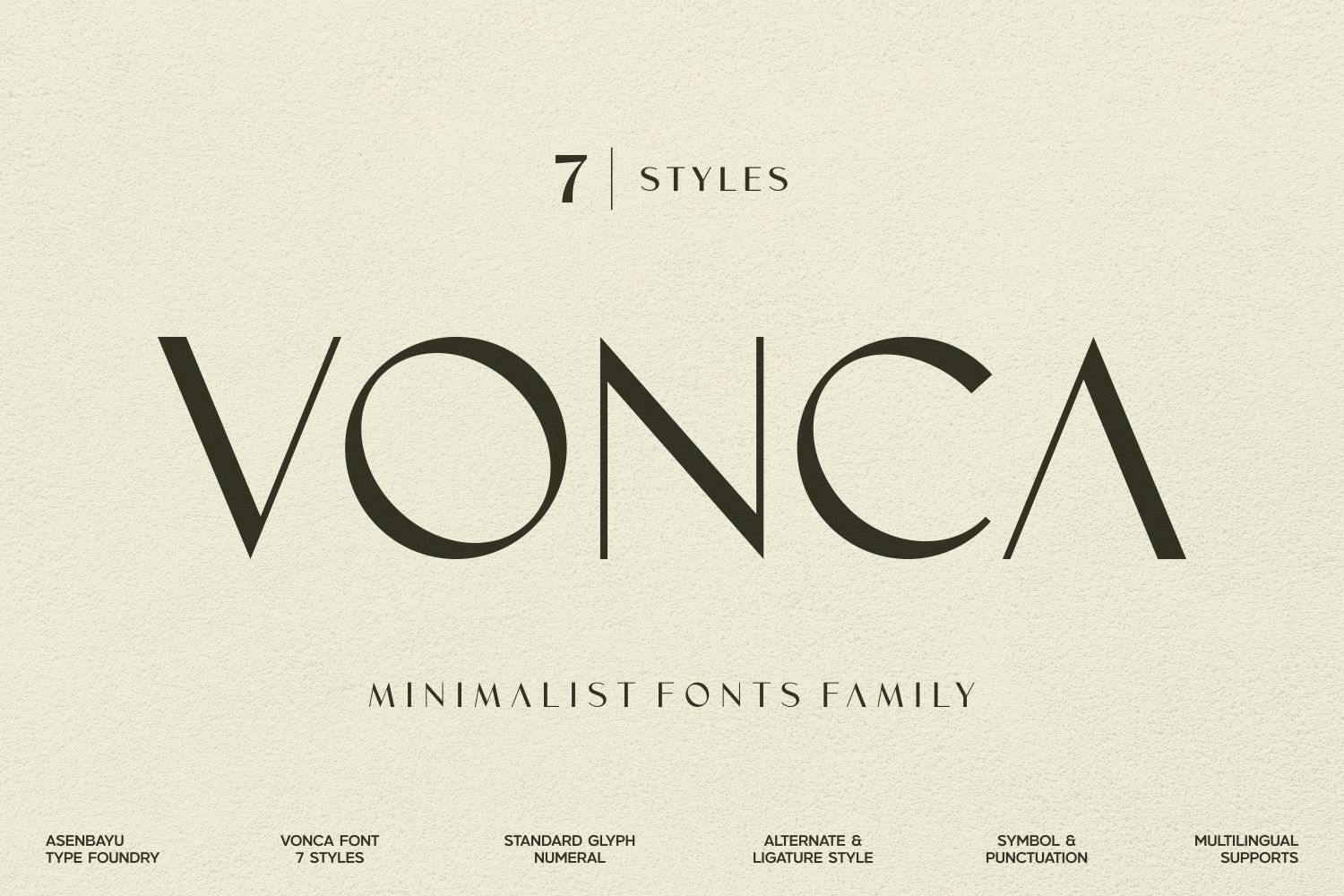
Vonca - Minimalist Font Family
Perfect for clean branding, editorial design, websites, logos, packaging, and user interfaces.
The Vonca - Minimalist Font Family excites designers with its sleek, modern simplicity that balances clarity and elegance for versatile design needs.
Font families: Vonca Regular, Vonca Italic, Vonca Bold, Vonca Light, and more.
The Vonca - Minimalist Font Family Free Download is a refined typeface collection crafted to provide a clean and contemporary aesthetic. Its simple lines and balanced proportions make it ideal for projects that demand readability and subtle sophistication. Whether you’re working on branding, editorial layouts, or digital interfaces, Vonca delivers a polished, minimalist look.
One of the standout features of Vonca - Minimalist Font Family is its adaptability across diverse mediums. It excels in both print and digital environments, maintaining clarity and elegance whether used in headlines, body text, or UI elements.
In branding, Vonca conveys modernity, professionalism, and approachability. It pairs perfectly with minimal color schemes, spacious layouts, and sleek graphics, helping brands project a fresh and trustworthy image.
For digital projects, this font family enhances website headers, apps, social media content, and digital marketing materials with its clean and versatile style. Its refined design ensures your digital presence feels modern and inviting.